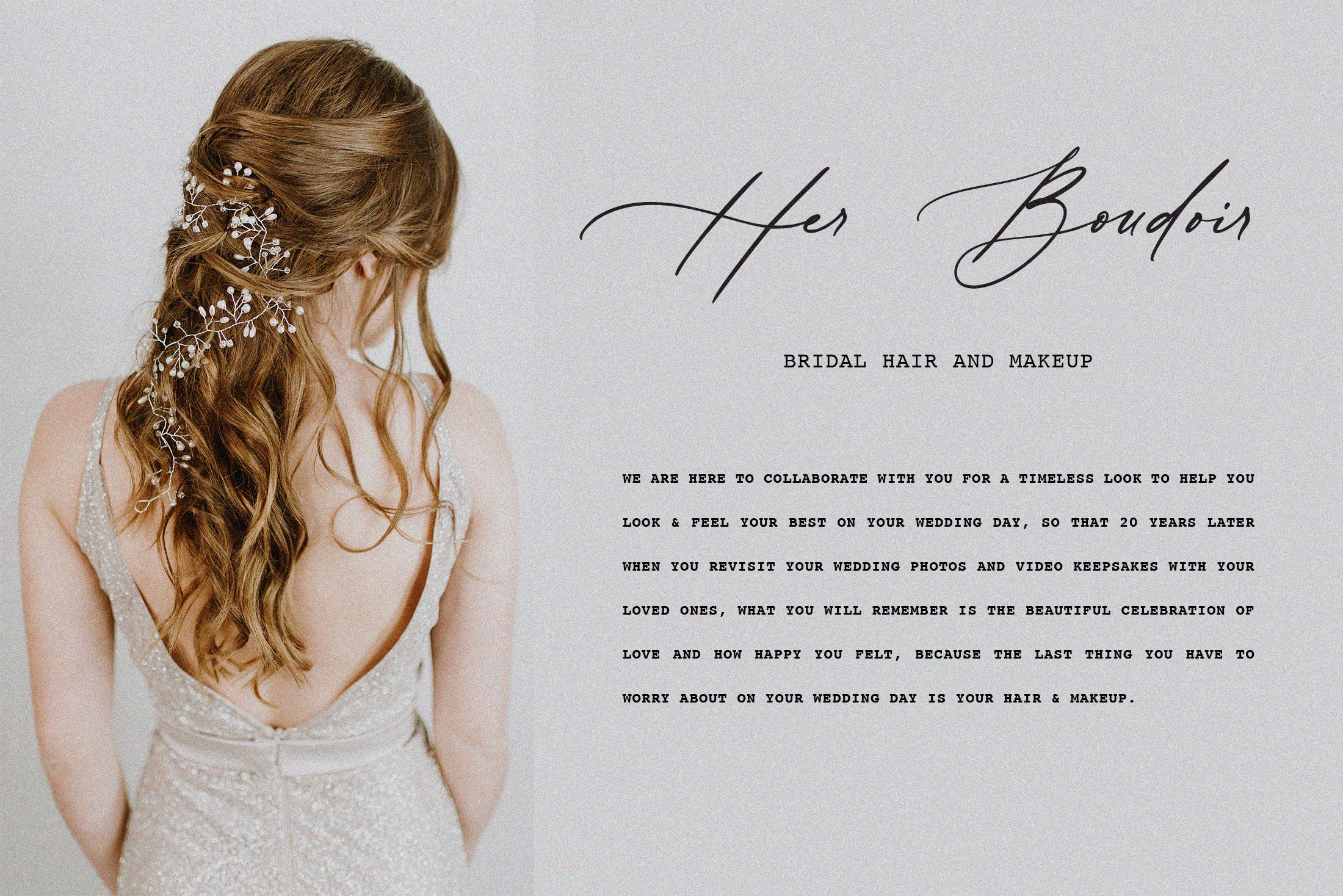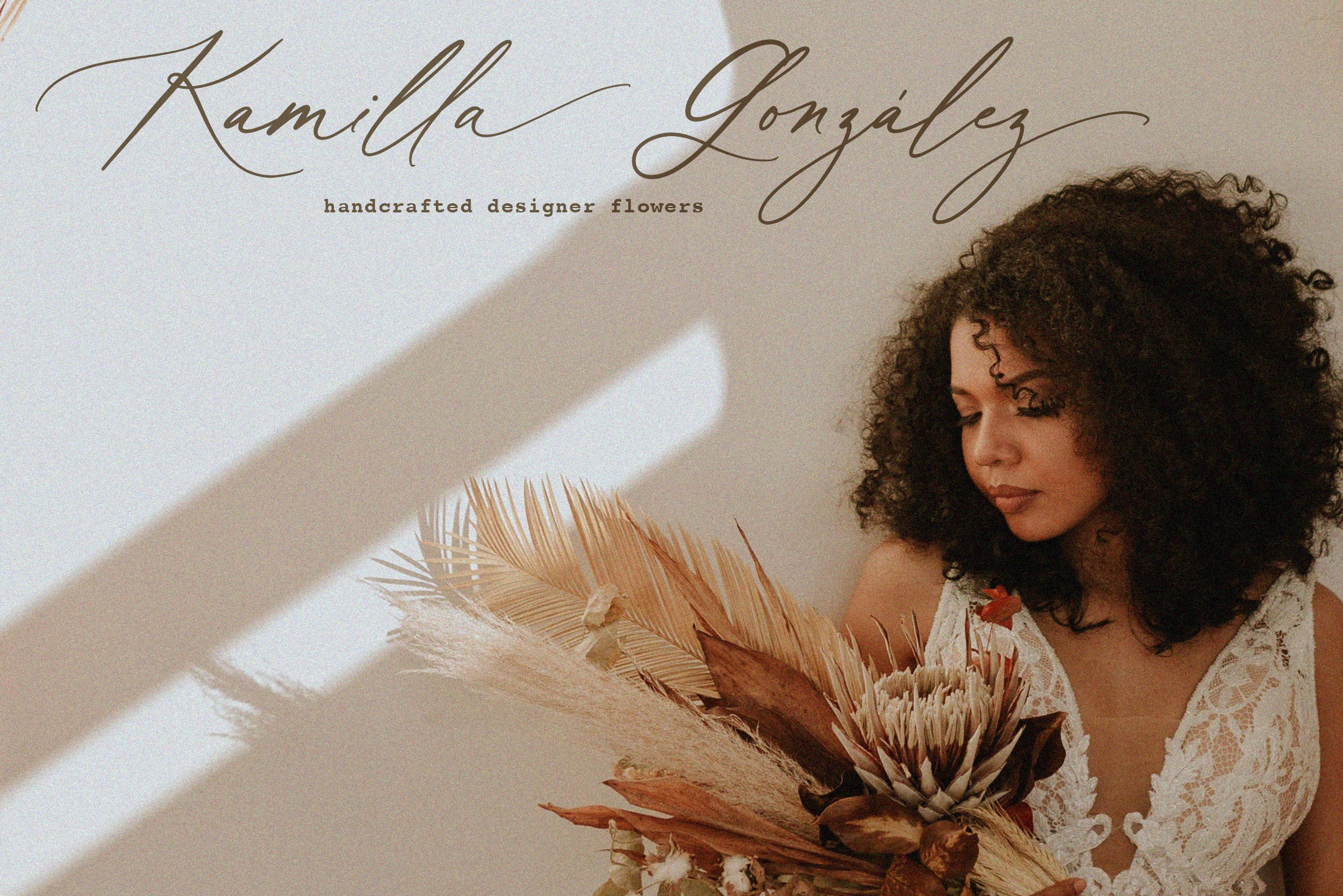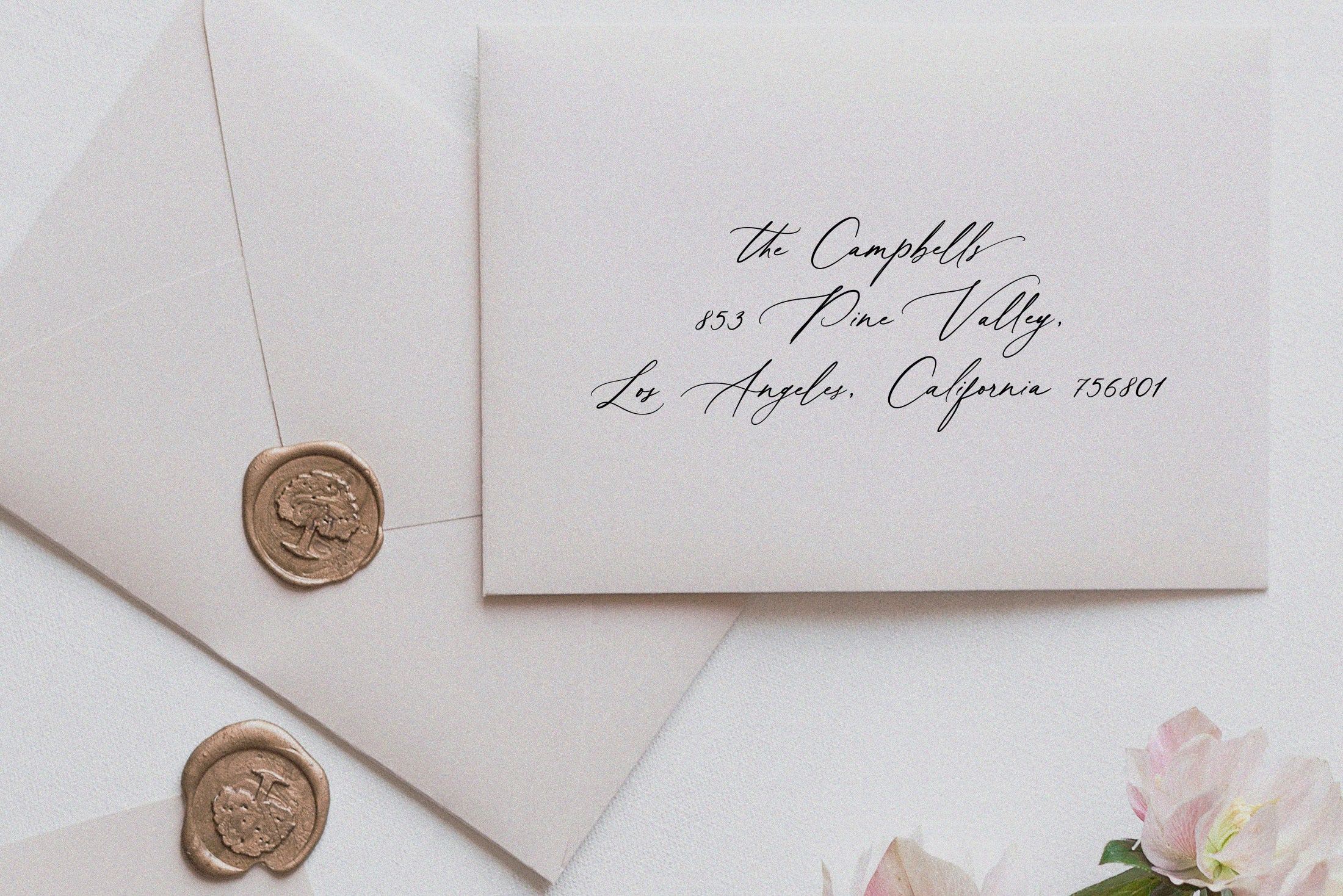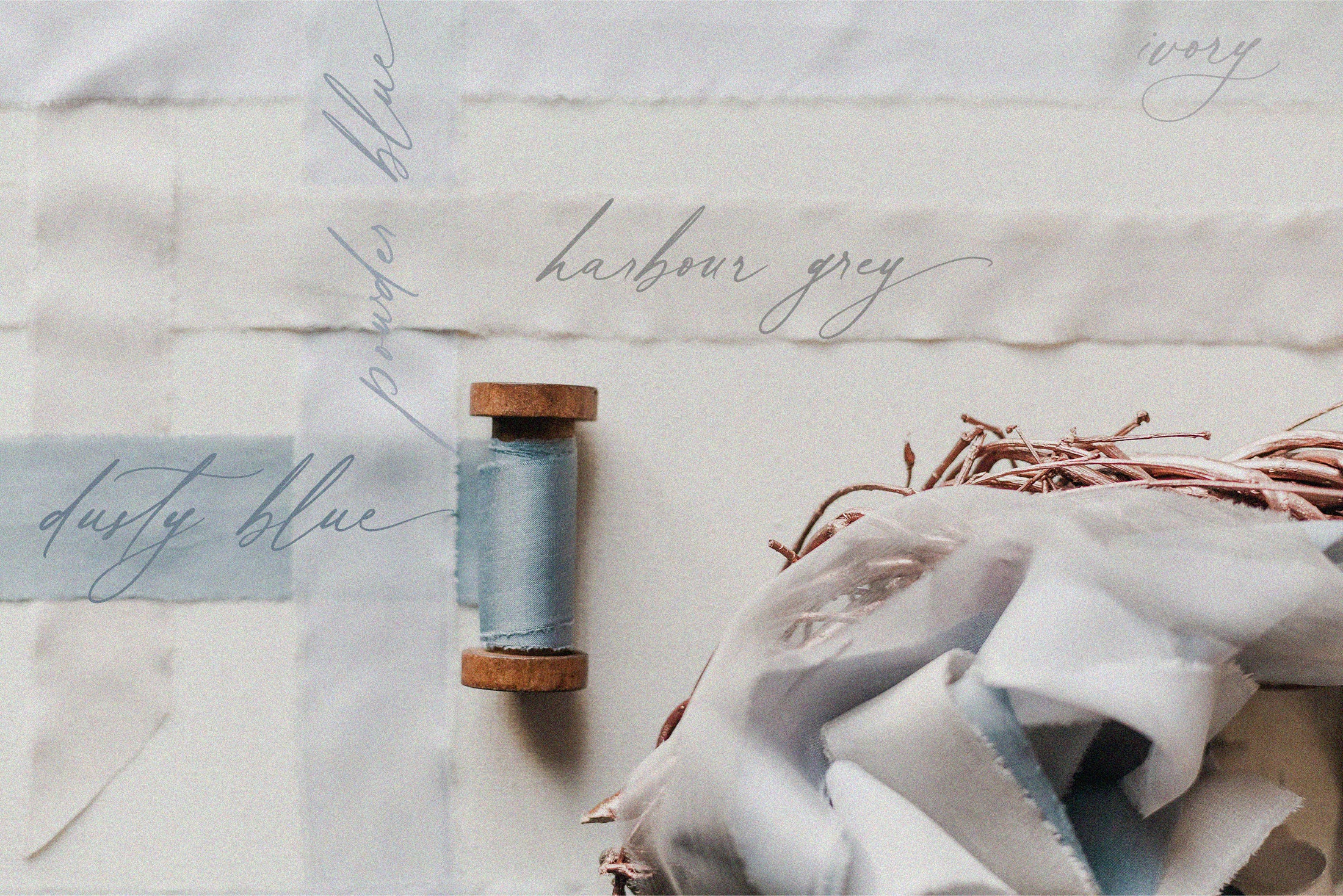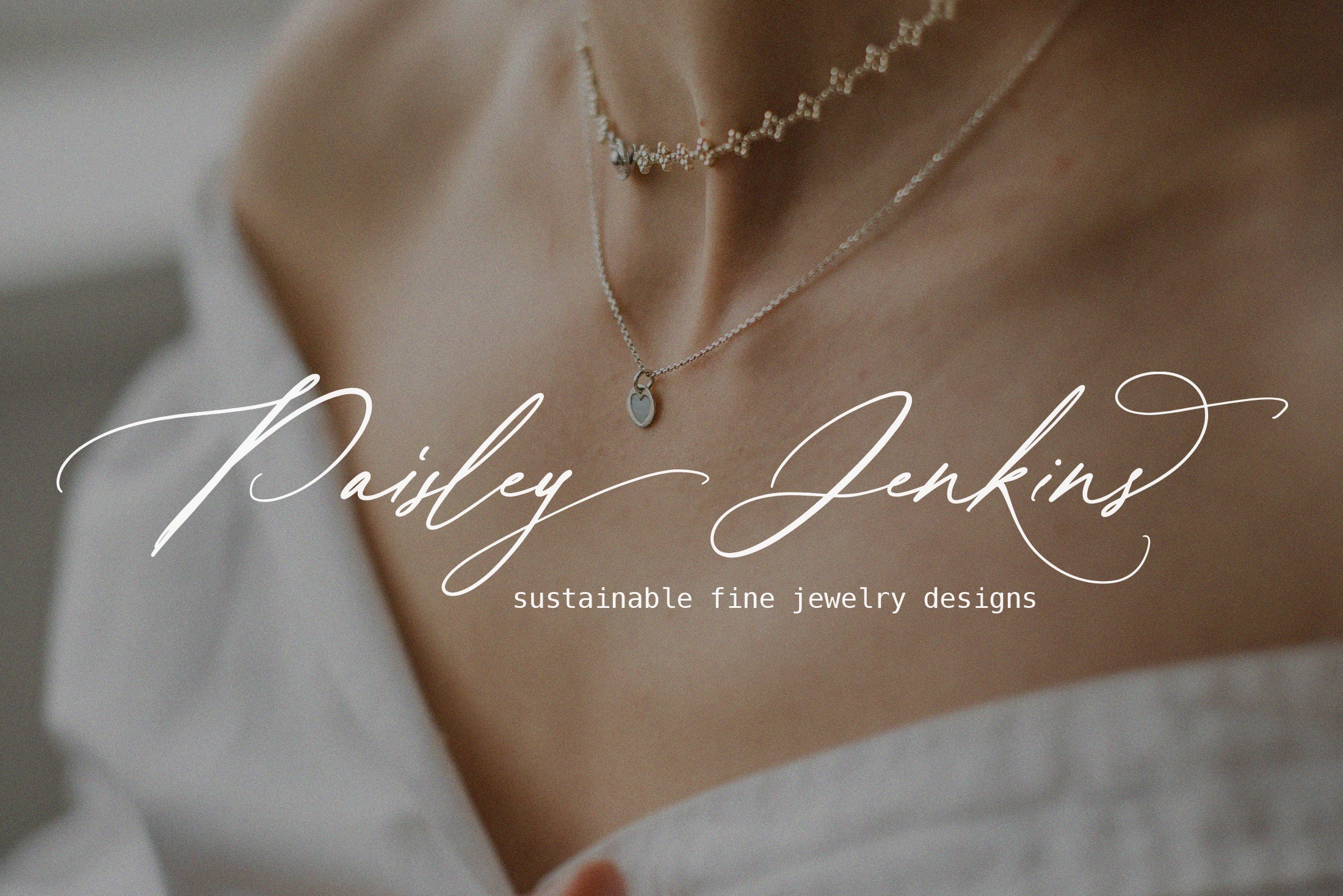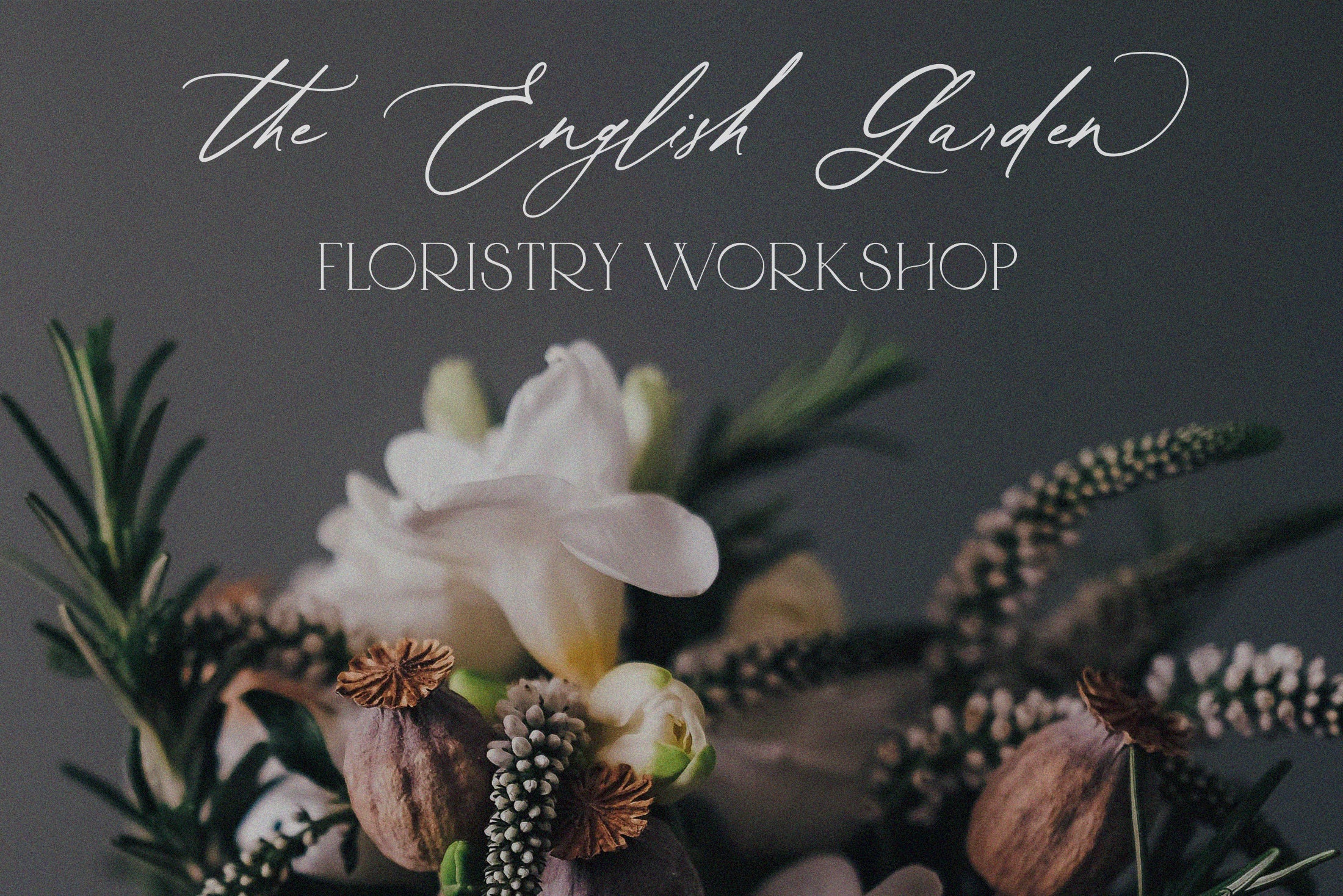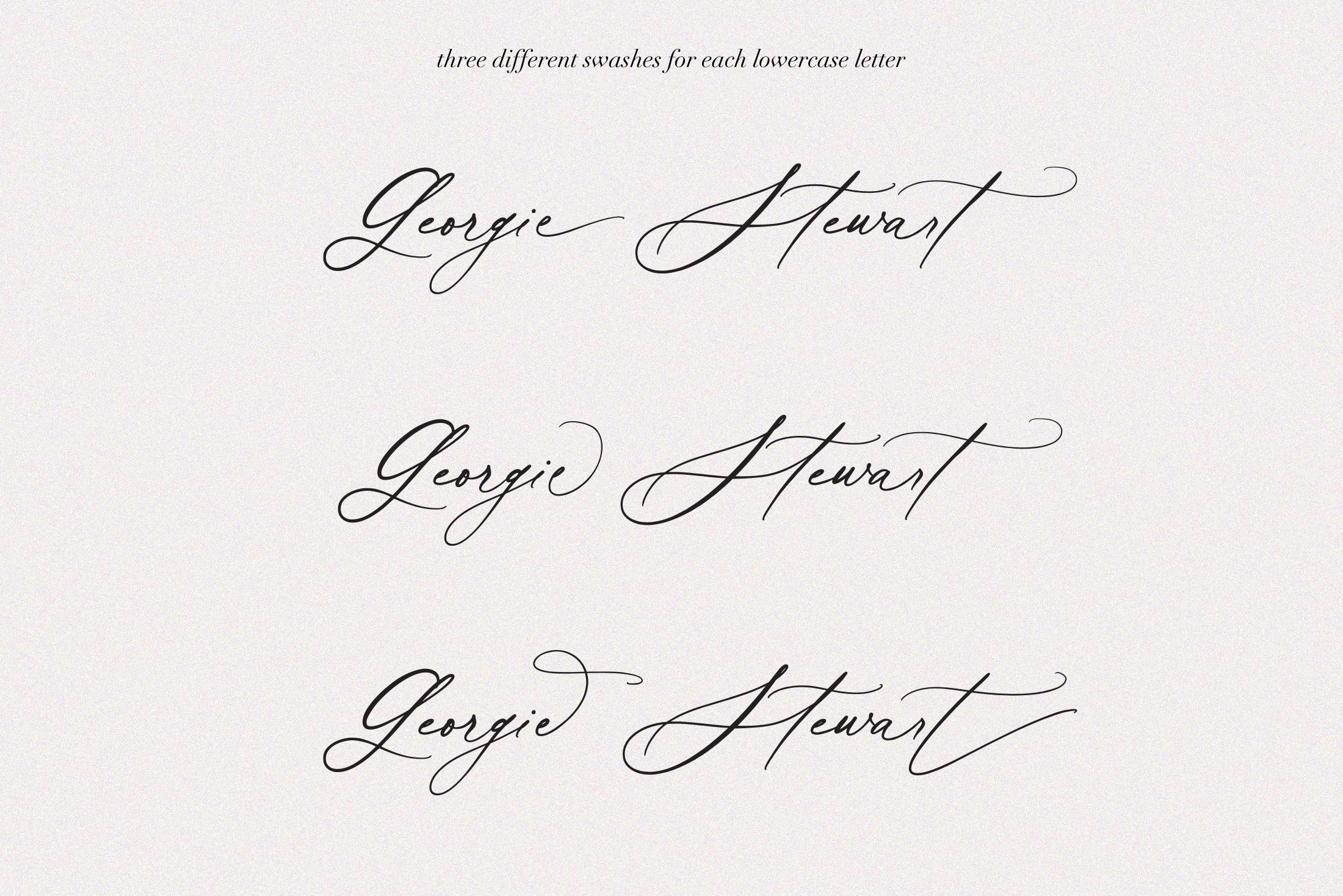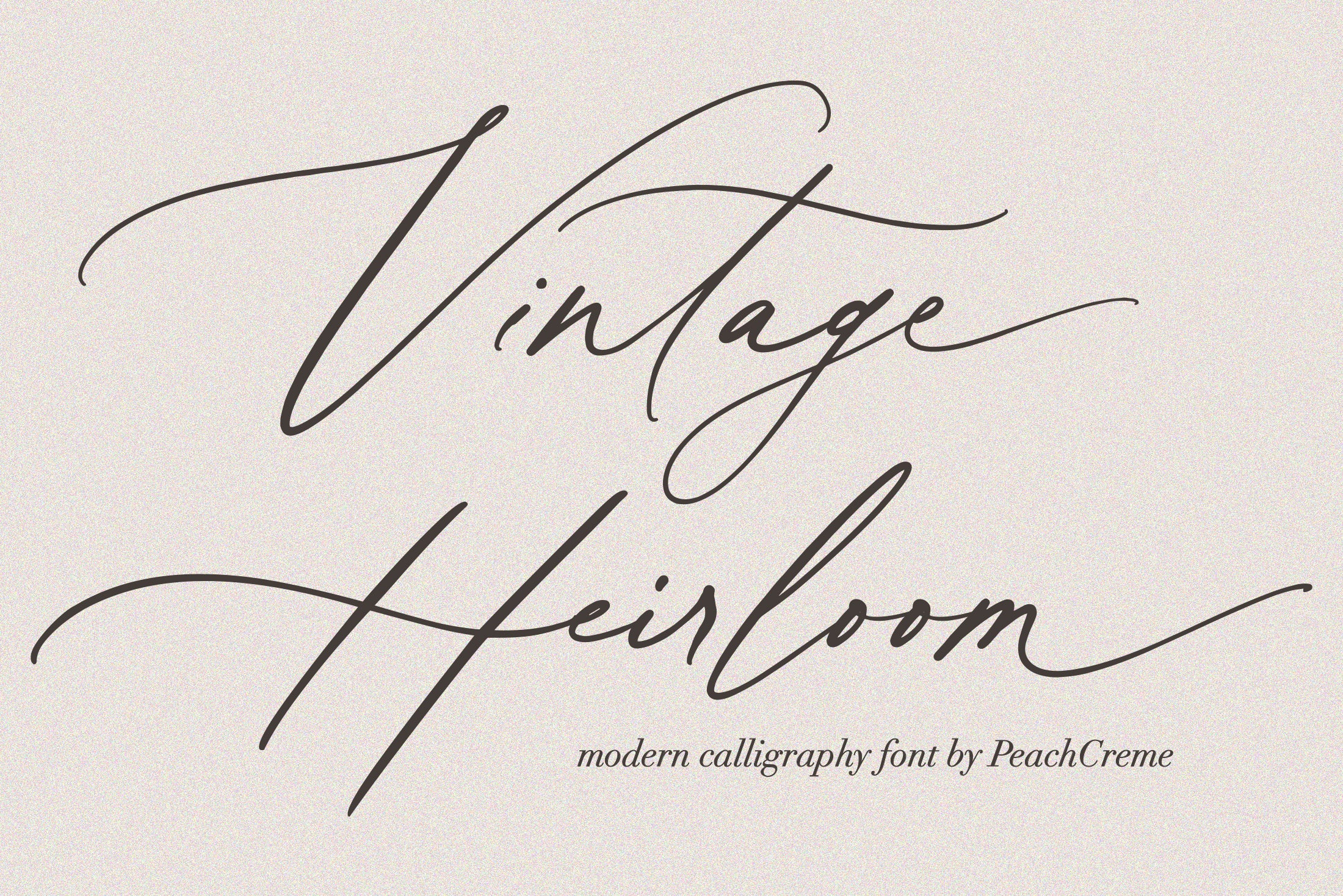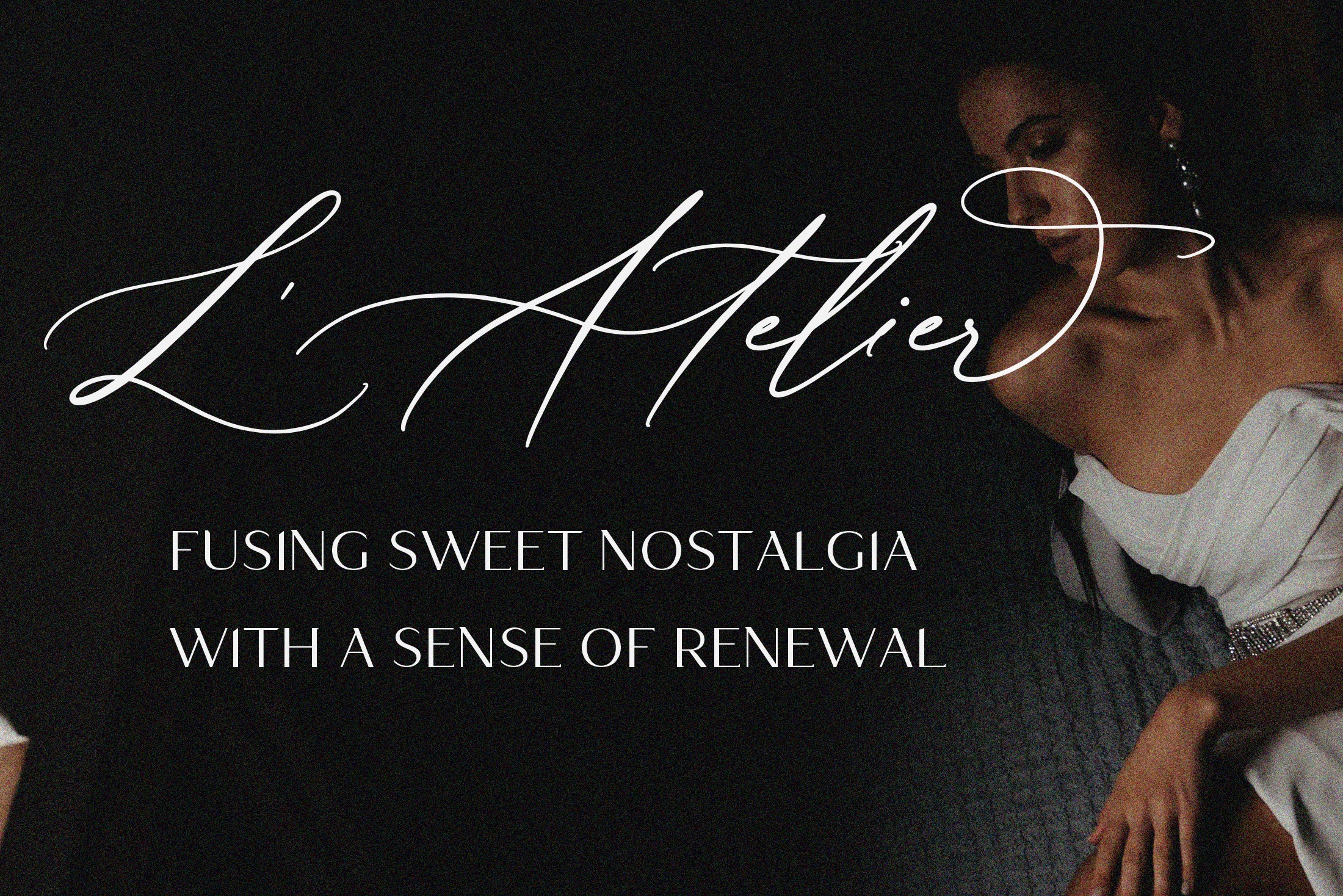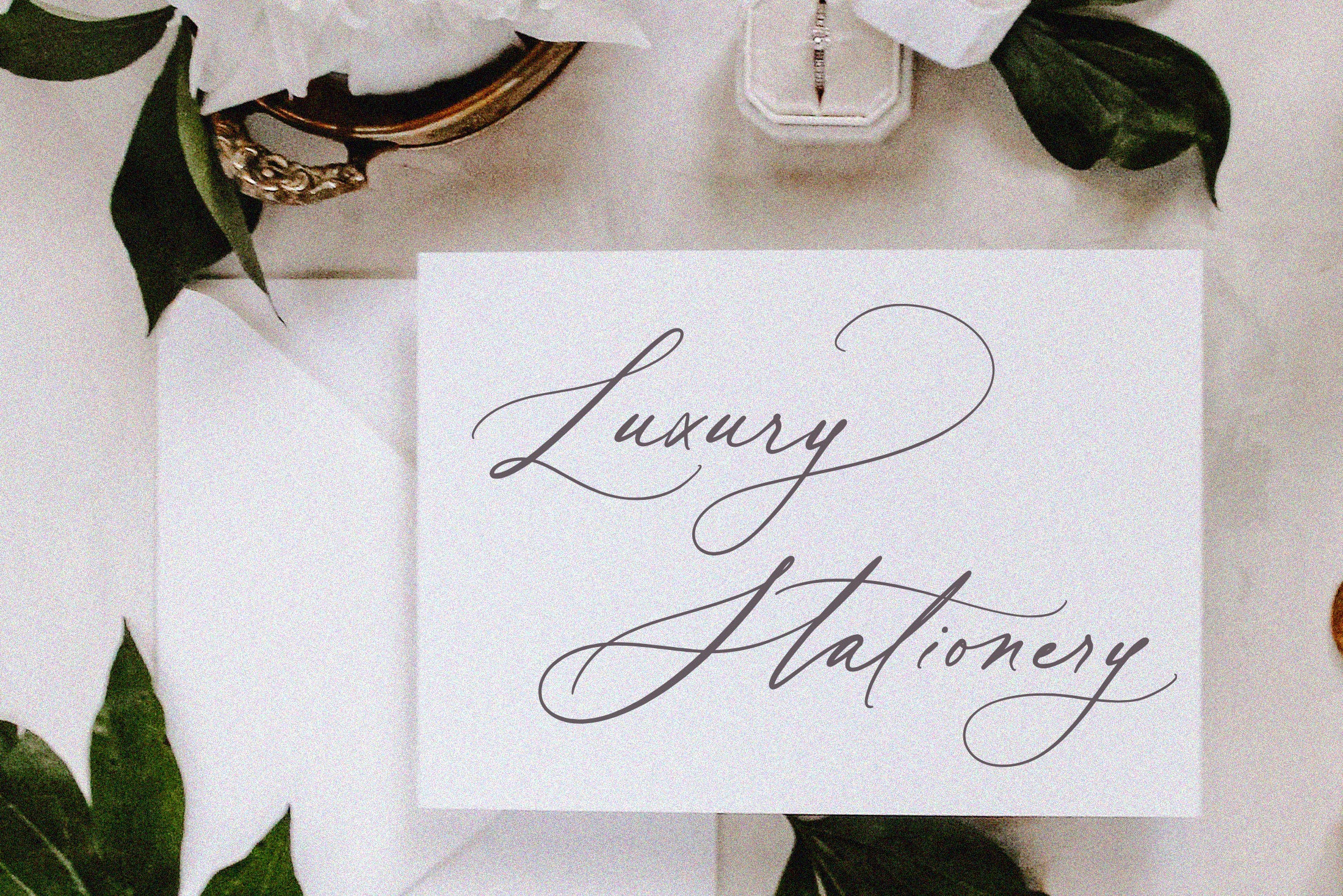
Vintage Heirloom// Modern Calligraphy
Introducing our new gorgeous calligraphy font, Vintage Heirloom! A beautiful script for those who wish to enhance their designs with elegance and style.
Vintage Heirloom includes a full set of uppercase and lowercase regular letters, numerals, punctuation, and 52 ligatures. There are three different swashes for each lowercase letter so you can easily give your designs a natural, yet sophisticated, hand-calligraphy look.
Vintage Heirloom is a wonderful choice for wedding invitations, save-the-date cards, feminine branding, upscale packaging, websites, and any other projects requiring a handwritten and luxurious touch.